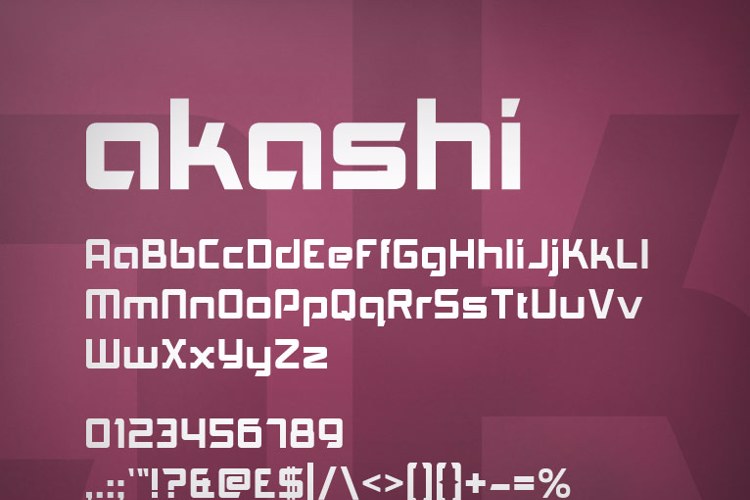
Akashi Font
About Akashi Font
Akashi is a simplified font with a futuristic touch. Angled cut aways lend the shapes a sharper, more defined look than usually found in fonts of this weight.